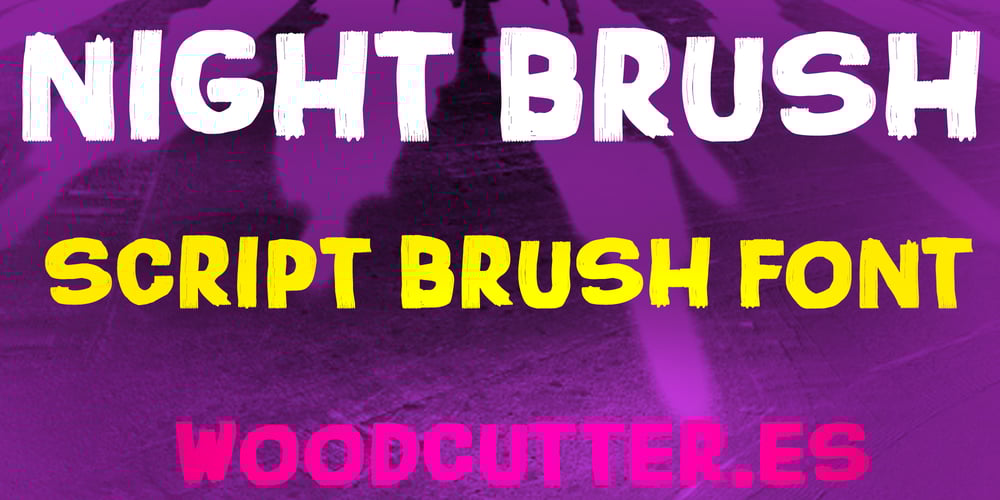
Night Brush
Night Brush font
Night Brush Font Family was designed by Jordi Manero and published by Woodcutter. Night Brush contains 1 styles and family package options. “Night Brush” is an uppercase typeface that blends the strength and natural feel of hand-drawn strokes. Its letters feature a brushstroke style that adds dynamism and texture, achieving a balance between solidity and an artisanal touch. Each character is carefully designed to mimic a painted finish, giving it a bold and energetic appearance. It includes accents, making it ideal for multilingual projects. Perfect for posters, logos, or designs that aim to convey strength, creativity, and an artistic vibe while maintaining functionality.